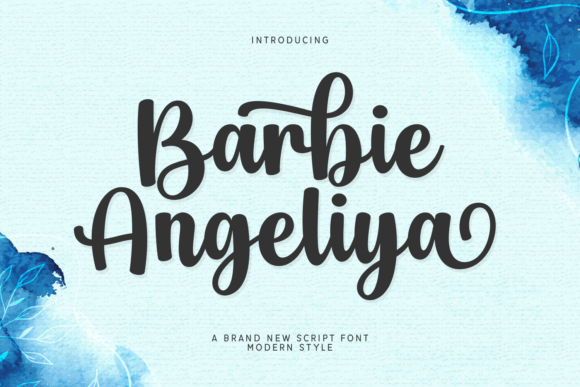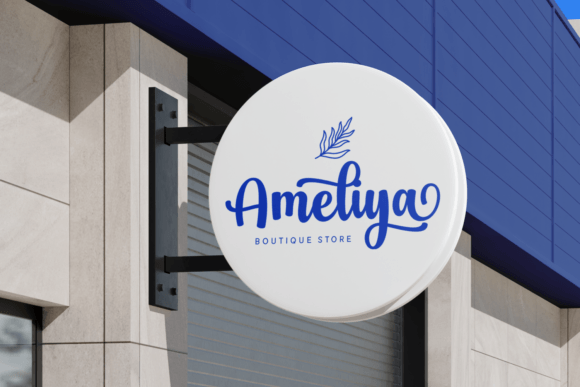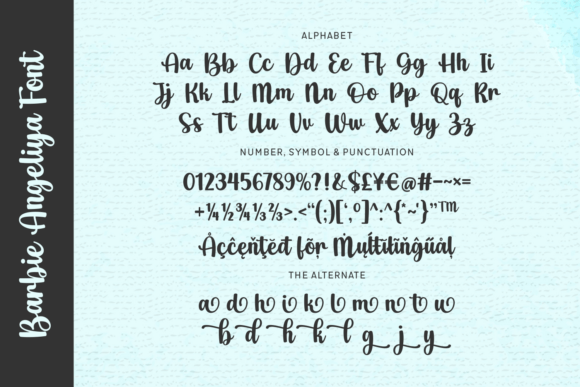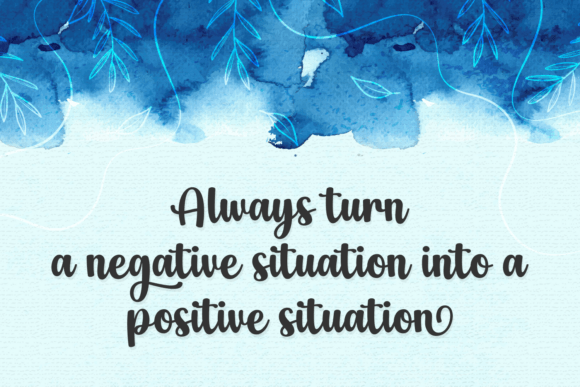
The Perfect Font for Your Creative Masterpiece
Do you remember the excitement of brainstorming a new project, surrounded by scribbled notes, colorful pens, and a blank canvas waiting to be filled with your imagination? That’s exactly the moment when the right font can make all the difference. Whether you’re designing a logo, crafting wedding invitations, or creating social media graphics, the perfect font can elevate your ideas and leave a lasting impression.
Enter the Barbie Angeliya Font, a modern script font that brings a touch of elegance and playfulness to your creative projects. With its smooth curves and bold strokes, this font is perfect for designers looking to add a stylish and contemporary touch to their work. Its versatility makes it an excellent choice for a wide range of applications, from digital designs to wedding stationery. The Barbie Angeliya Font is a valuable addition to any designer’s toolkit, offering endless possibilities for bringing your ideas to life.
Key Features of Barbie Angeliya Font
- Font Family: Barbie Angeliya Font is a unique, custom-designed font family.
- Unique Characteristics: Features a distinctive, cursive-like design with flowing lines and elegant curves, making it suitable for creative and artistic applications.
Review: Barbie Angeliya Font
The Barbie Angeliya Font is an intriguing addition to any designer’s toolkit. Upon first glance, the font’s aesthetic appears ✨ vibrant and playful, making it perfect for designs targeting a younger demographic. The font’s bold and colorful nature is reminiscent of a sunny day, and its whimsical feel is sure to bring a smile to anyone’s face.
One of the standout features of the Barbie Angeliya Font is its versatility. It can be used in a variety of applications, from logos to social media graphics, and even print materials. The font’s range of characters and symbols also makes it a great choice for designers who need to create engaging and interactive content.
- ⚠️ The font’s bold and playful nature may not be suitable for all design projects, particularly those that require a more professional or formal tone.
- ⚠️ The font’s limited font weights and styles may make it difficult to achieve a cohesive look in more complex designs.
Overall, I think the Barbie Angeliya Font is a fun and creative addition to any designer’s toolkit. While it may have its limitations, its unique aesthetic and versatility make it a great choice for designers looking to add a touch of personality to their work.
The Barbie Angeliya font is ideal for:
- Children’s book illustrations and design.
- Cartoon and animation projects.
- Fun and playful marketing materials.
For best results, use the Barbie Angeliya font in conjunction with colorful and playful graphics. Experiment with different font sizes, colors, and styles to create a unique and eye-catching design.